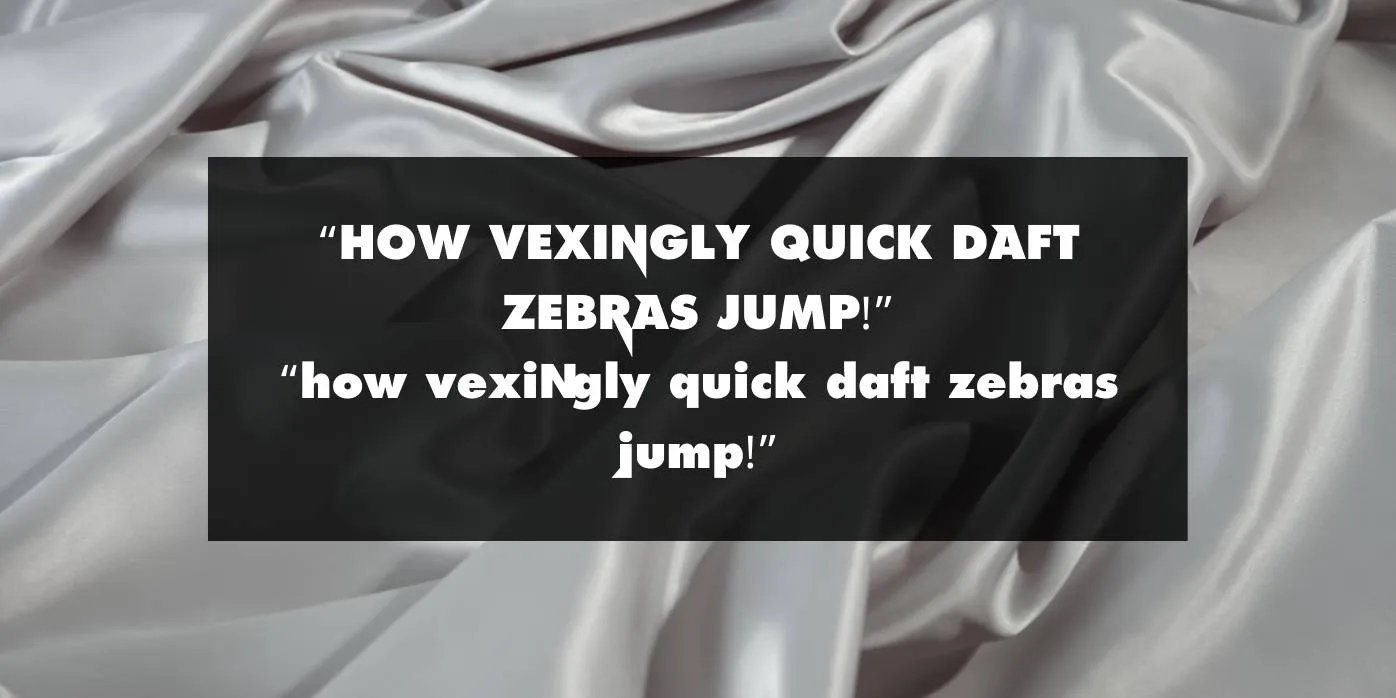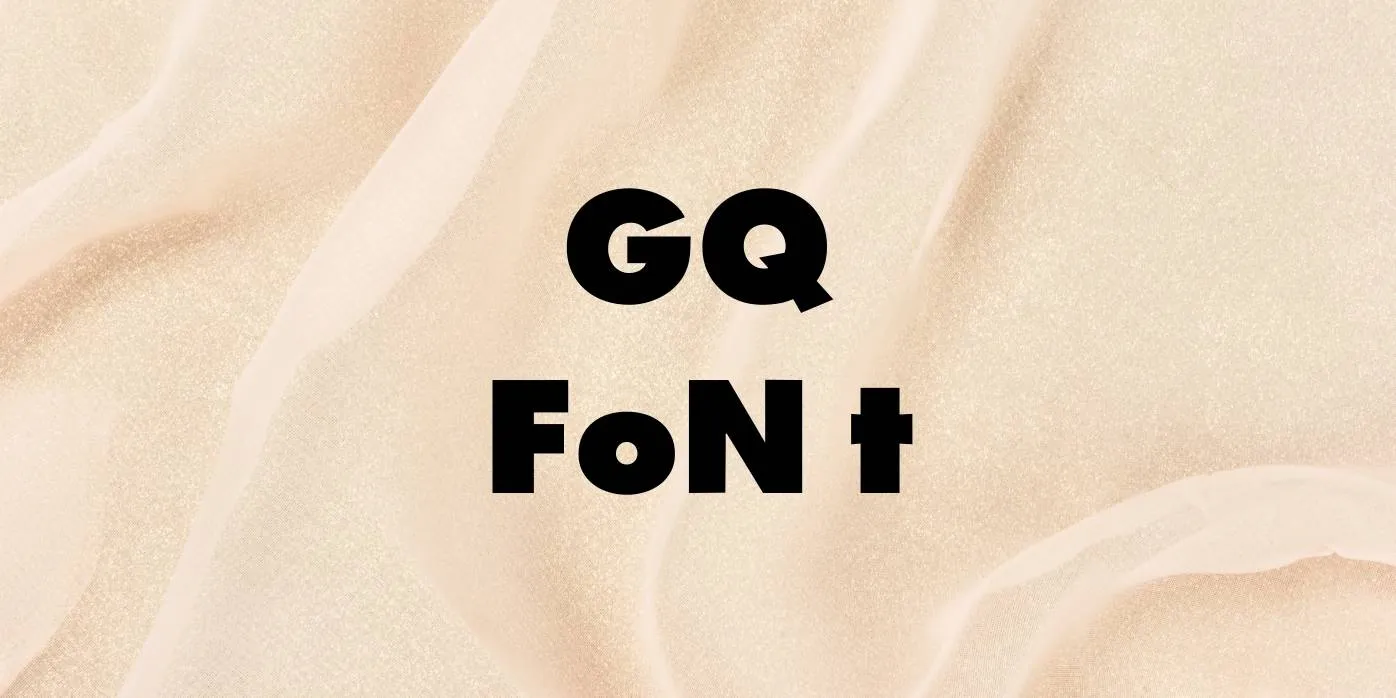
GQ Font
In this post, we introduce GQ Font which belongs to the sans serif family. This typeface was designed by Günter Gerhard Lange in 1967. The original concept of this font is to be very readable even at small sizes. This is why it is often used for body text in magazines.
This typeface is specified for the CSS. One of the most distinctive features of GQ Font is its unique “a” character. This character has a sharp angle on the left side and a curved right side. This makes the letter look like it’s smiling.
The copy-and-paste function is well-suitable for many interesting designs. This stunning font is available in four weights: regular, bold, italic, and bold ital. Each weight has a unique set of characters with different stroke widths. Another similar font which is gordita font is perfect for different designs.
This gives the font a lot of versatility and makes it suitable for use in a wide range of projects. Its generator tool is very classic for graphic designs.